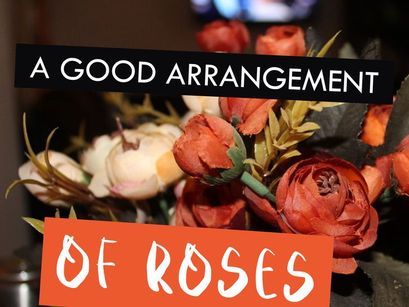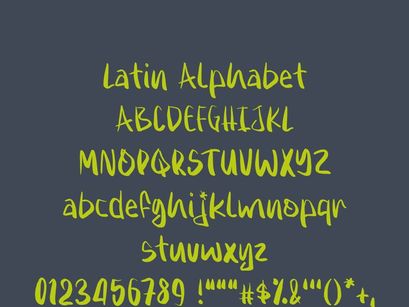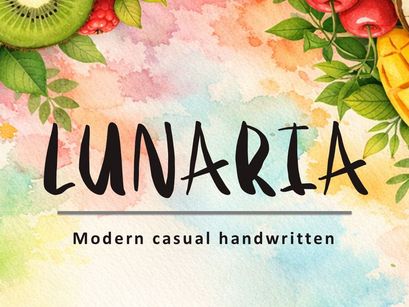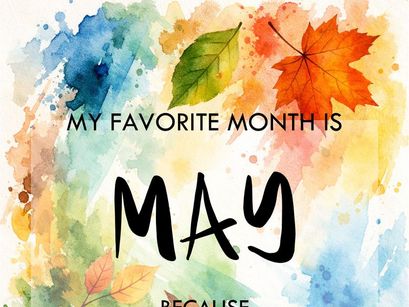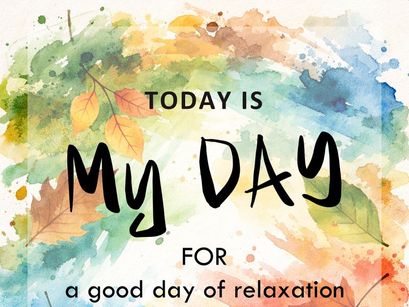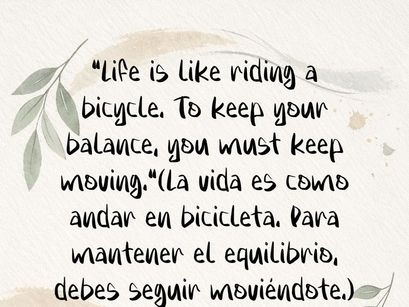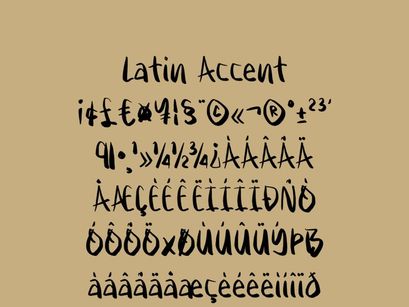
LUNARIA – Modern casual handwritten font (OTF)
LUNARIA
LUNARIA is a modern, casual, handwritten typeface with soft, expressive strokes that convey naturalness and balance.
Its style combines elegance and spontaneity, making it ideal for creative projects, inspirational quotes, handcrafted branding, and designs with an organic feel.